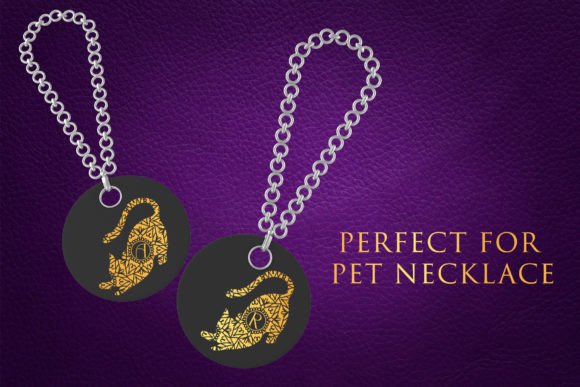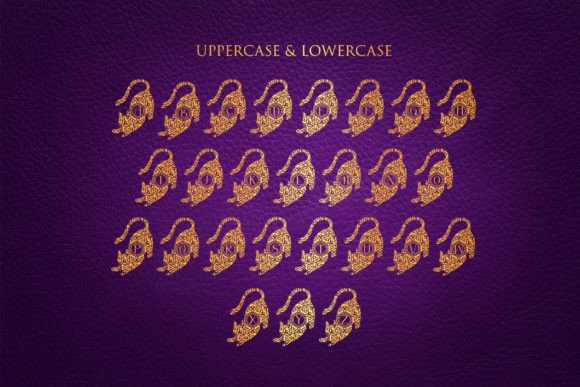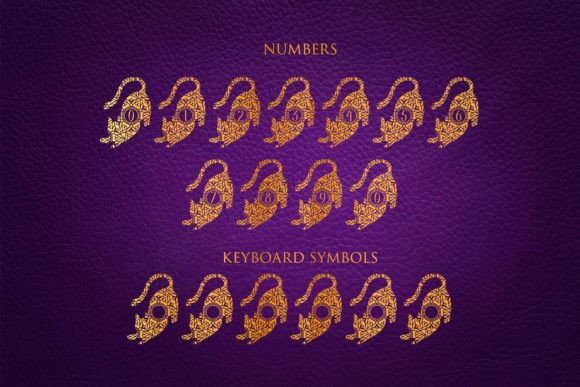
Introduction to Relaxed Cat Mandala Monogram Font
Do you remember the feeling of excitement when you stumble upon the perfect design element for your creative project? The thrill of bringing your vision to life, and the satisfaction of seeing it all come together in a beautiful, cohesive piece? For cat lovers and designers alike, the Relaxed Cat Mandala Monogram Font is about to become your new go-to resource.
As a valuable addition to any design arsenal, this high-quality font is specifically designed to enhance any project dedicated to our feline friends. With its intricate, hand-drawn details and transparent background, you’ll be able to add a touch of whimsy and personality to your designs. And the best part? The Relaxed Cat Mandala Monogram Font is available for free download, making it an essential design resource for any creative project.
Key Features of Relaxed Cat Mandala Monogram Font
- Unique, hand-drawn design with a high level of detail, perfect for creative projects.
- Includes a transparent background, allowing for easy customization and integration with other design elements.
- Perfect for creating a cohesive brand identity or adding a touch of whimsy to a design project.
- Monogram font style with a relaxed cat mandala design, ideal for those looking for a unique and creative twist on traditional monogram fonts.
Honest Review: Relaxed Cat Mandala Monogram Font
As a designer, I’ve had the pleasure of working with various fonts and design resources, and I’m excited to share my thoughts on the Relaxed Cat Mandala Monogram Font. ✨ This font is perfect for any creative project that needs a touch of whimsy and elegance. The high-quality design is sure to catch the eye and add a unique touch to your work.
- Unique and creative design that sets your project apart
- High-quality design that looks great at any size
- Some users may find the font too playful or distracting
- Limited customization options
- May not be suitable for formal or corporate designs
Overall, I’m impressed with the Relaxed Cat Mandala Monogram Font and would definitely recommend it for any creative project. With its unique design and high-quality construction, it’s a great addition to any design resource collection. ⚠️ Just be aware of the potential limitations and use it thoughtfully in your designs.
To maximize the potential of the Relaxed Cat Mandala Monogram Font, experiment with different font sizes, colors, and arrangements to create a visually striking design. Don’t hesitate to combine it with other design elements to add depth and interest.
The Relaxed Cat Mandala Monogram Font is suitable for various applications, including invitations, social media graphics, and merchandise. Its unique design makes it an excellent choice for creative projects that require a touch of elegance and whimsy.